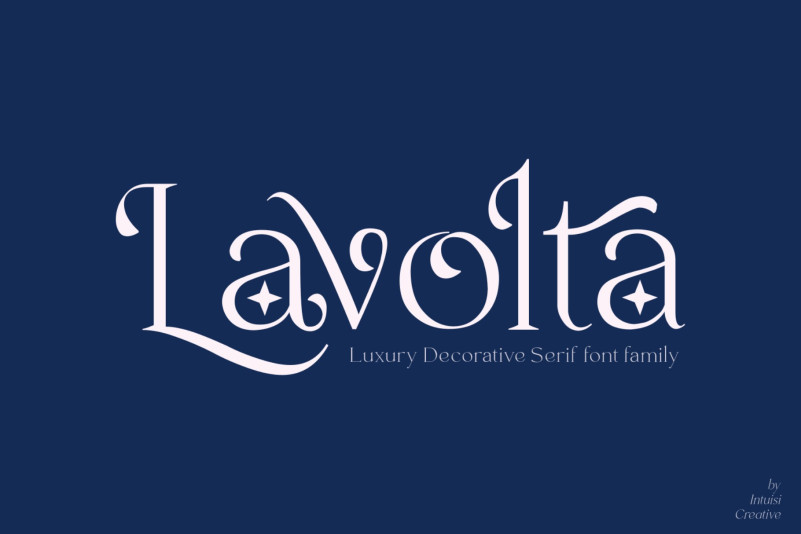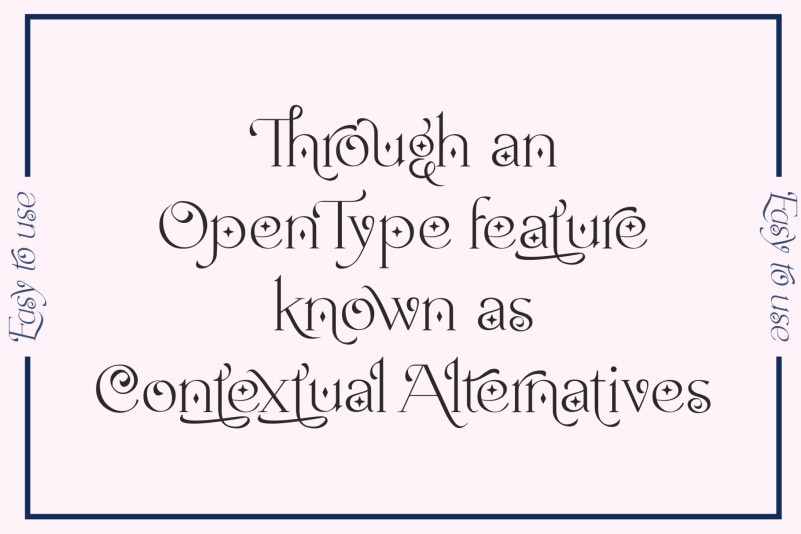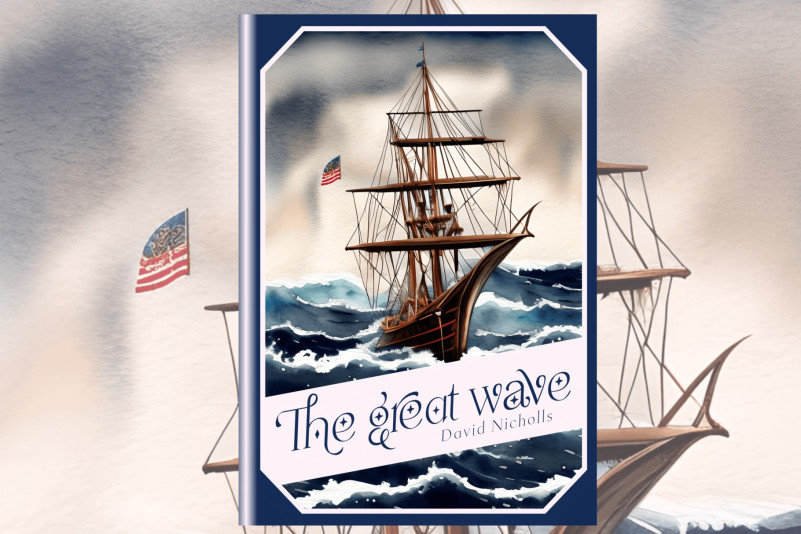
Lavolta Font
Introducing – Lavolta Serif Font, is a fancy and functional serif font family, featuring two distinct style combinations. Lavolta has a mordern style, great for invitations, product branding, packaging, movie titles, book covers, magazines, websites and much more. Lavolta Swash has a slightly vintage style, there are 130+ alternative characters and is equipped with a contextual alternates (CALT) feature to make your life easier when using it on long texts. Lavolta Swash Decoratif with stars creates a lively and festive atmosphere.